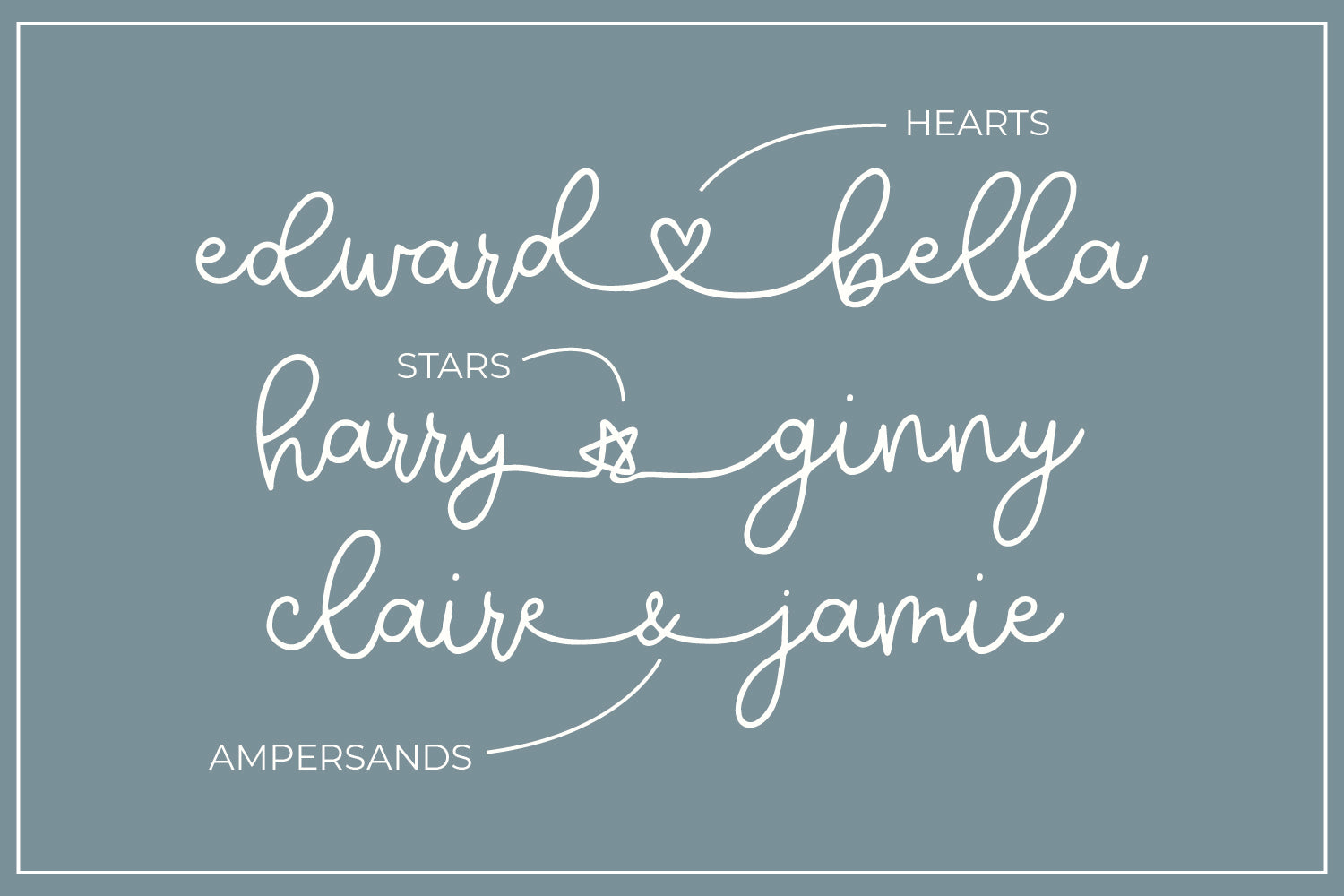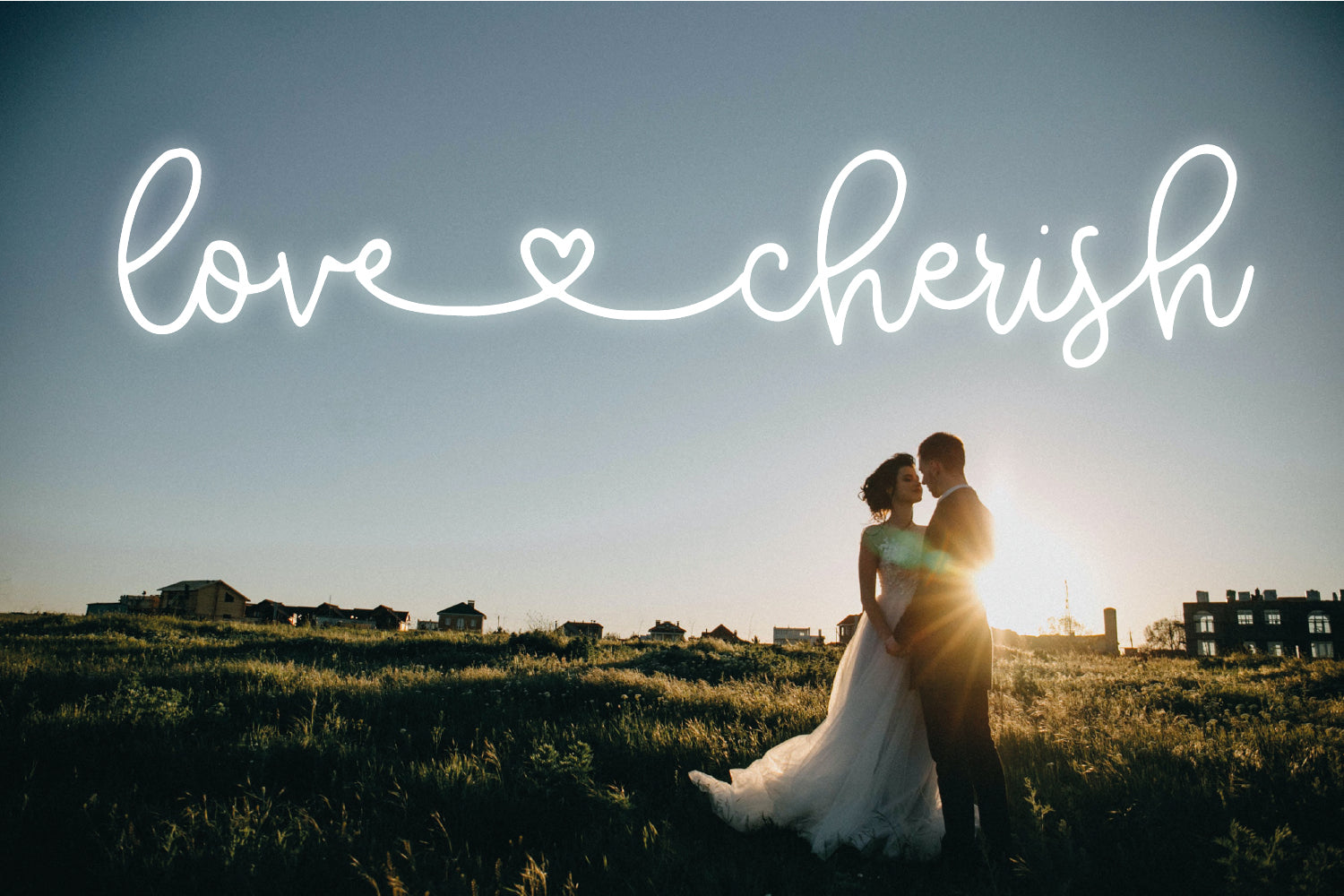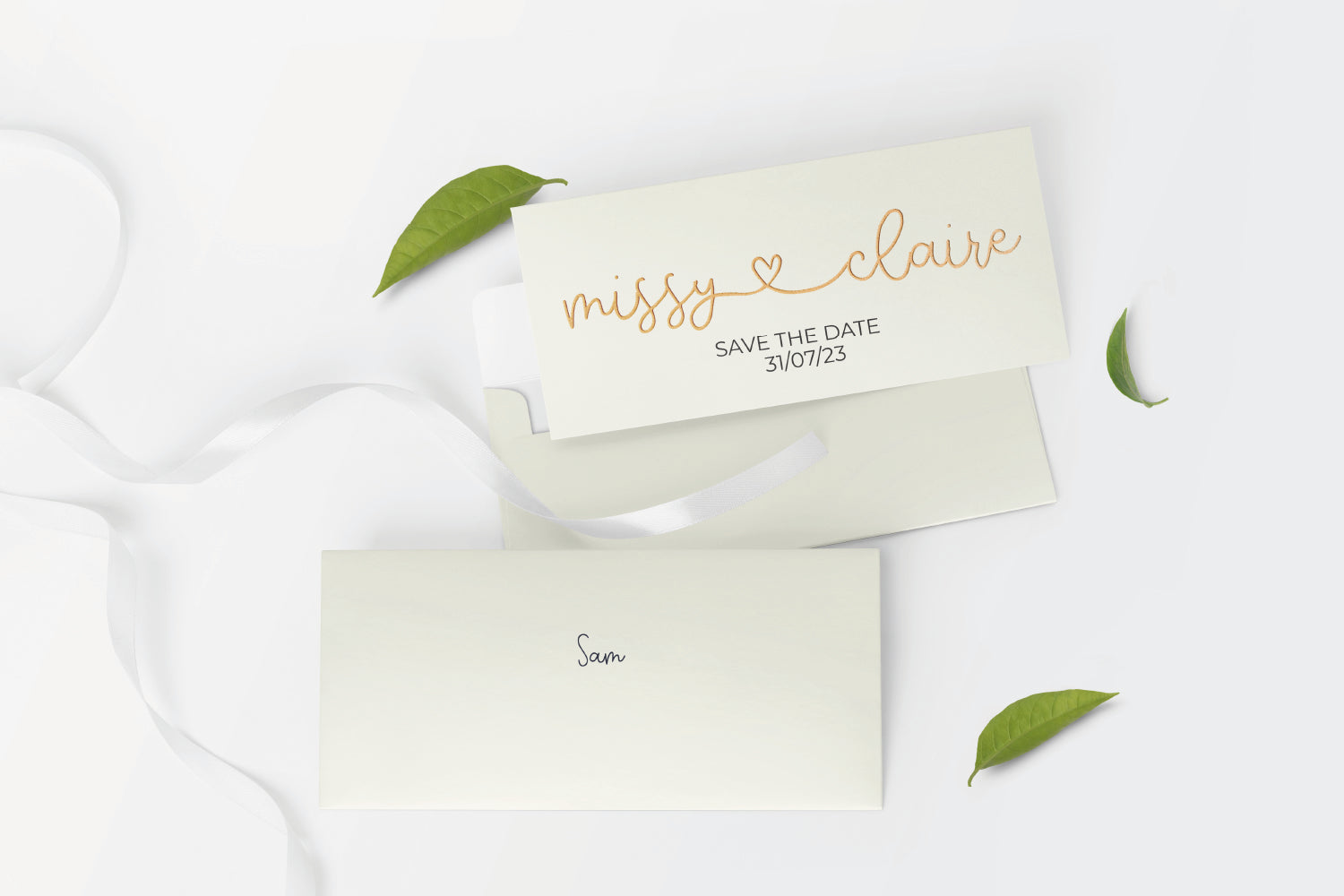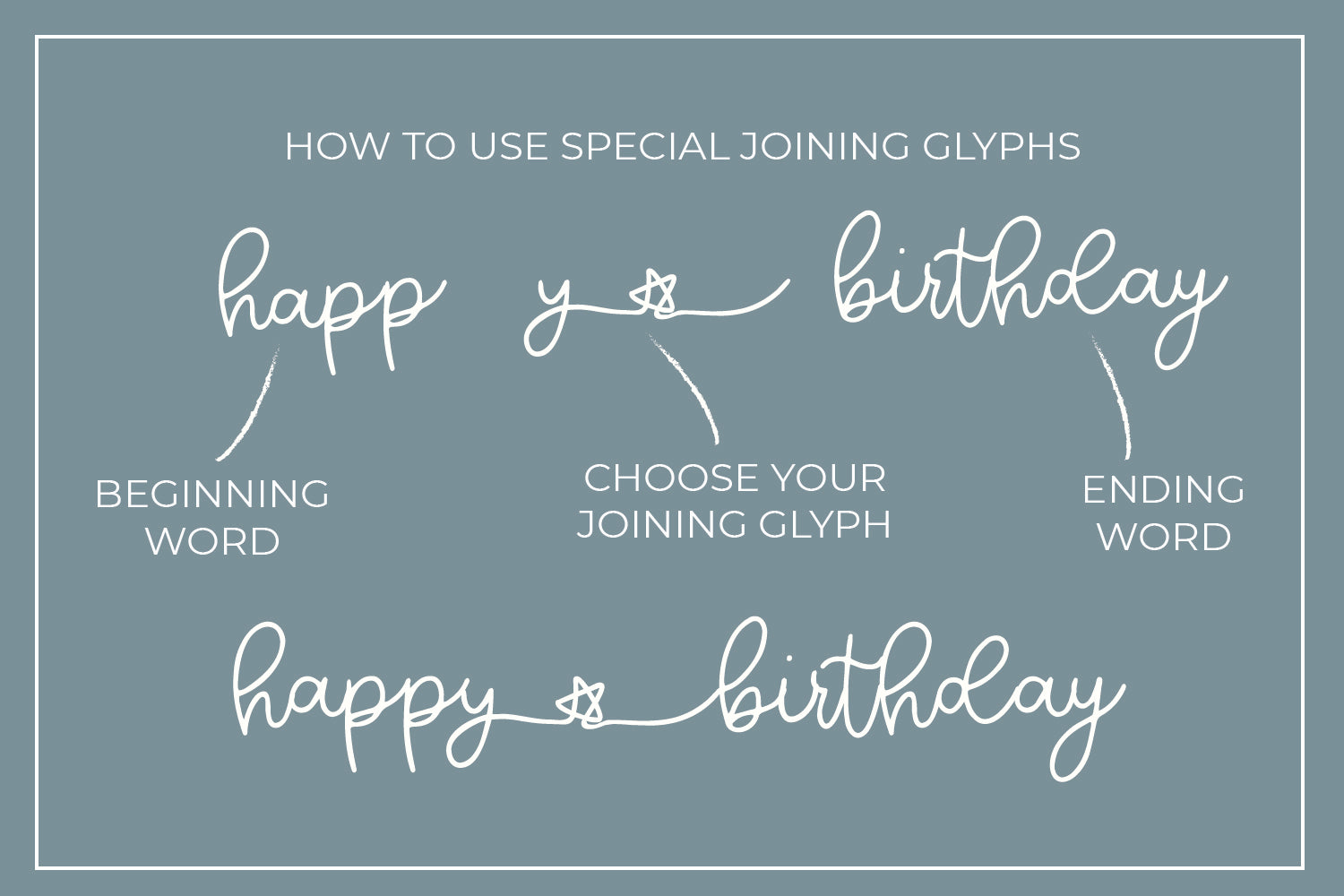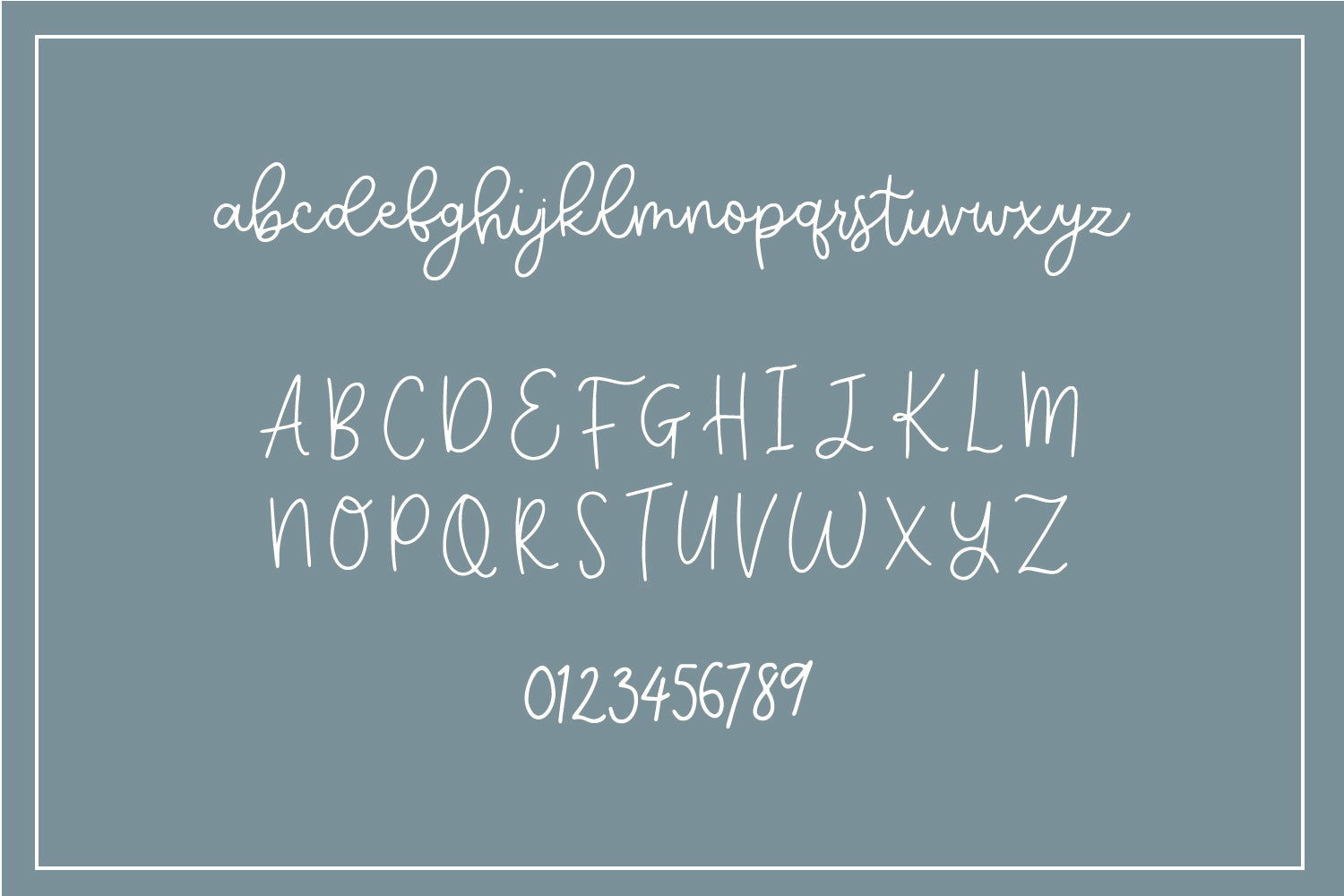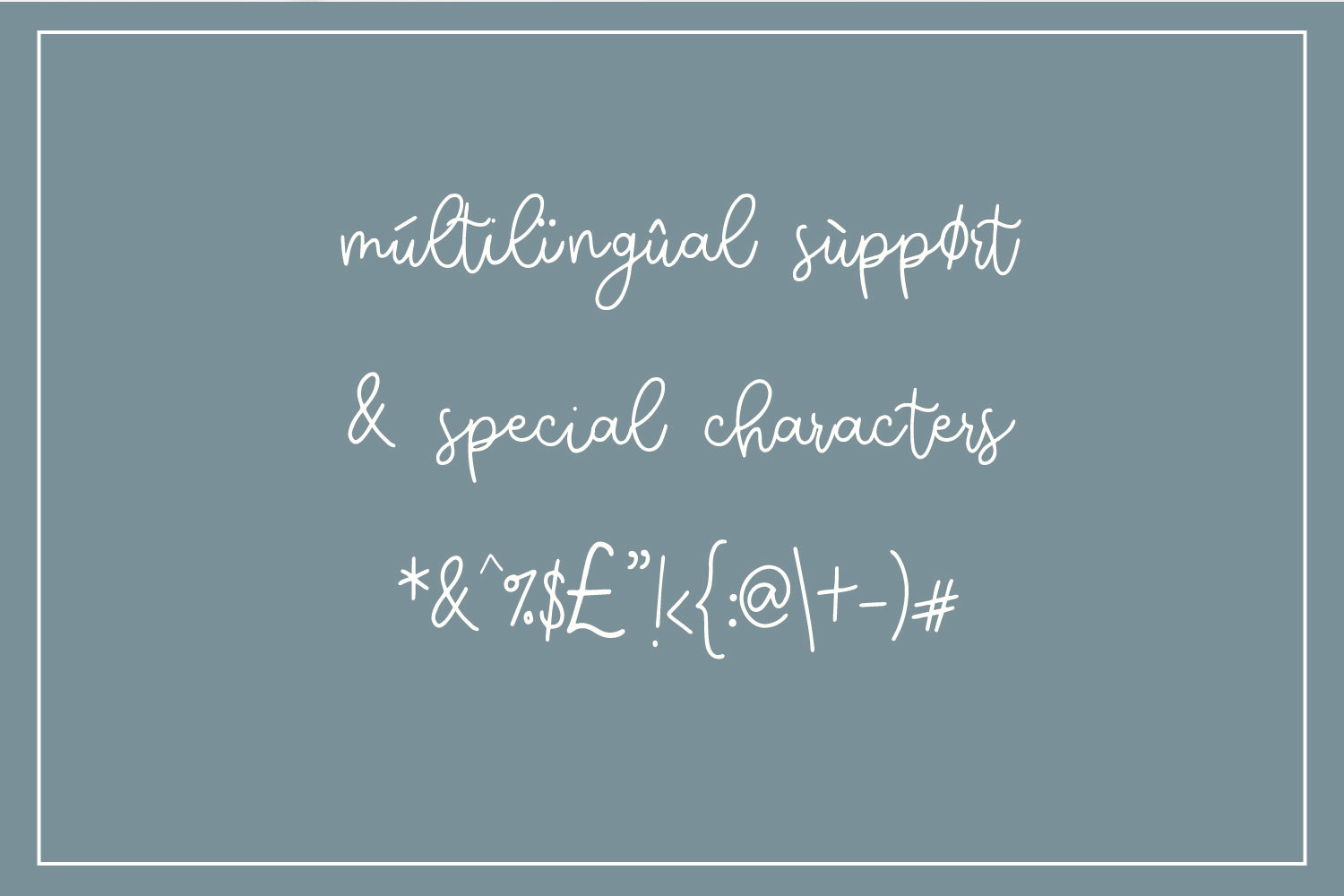
About Far & Away
Far & Away brings a fresh new look for your design work. It utilitises classic hearts to link letters, but also gives you practical ampersands and quirky stars! It will be your go to font for wedding invitations and personalised products. With swooping swashes and loads of character, it’s the perfect font for small businesses. Classy but friendly, Far & Away is a flexible font that can be used again and again. Far & Away includes a full upper and lower case alphabet, plus 3 extra full lower case alphabets with the hand drawn connectors. Far & Away also comes with the usual host of special characters and multi-lingual support.